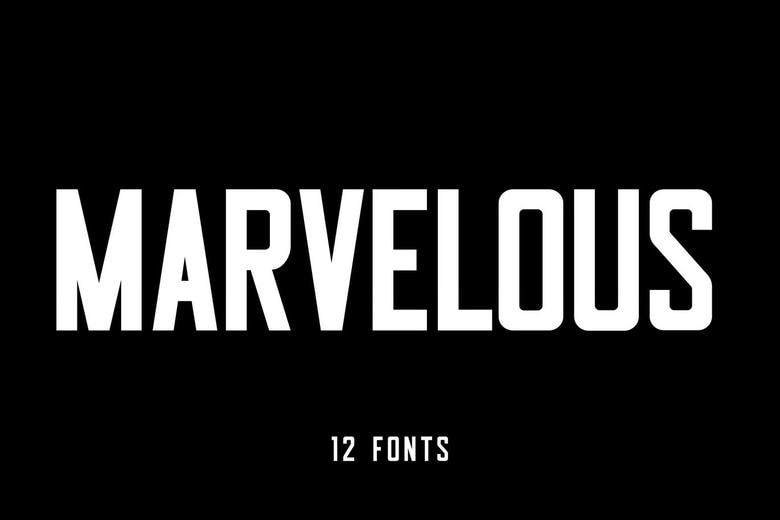
Marvelous Font Family
Marvelous is a high impact condensed typeface which will perfectly add distinctiveness and clarity to any design. Based on the clean lines and modest size of the Marvelous typeface, you will have all the options you require to select the most suitable mood for your work: 12 various styles at your service. This typeface is refined for improving your work if you want a sleeker, traditional, or daring upcoming typeface.
Marvelous is a great solution for those who want to underline the legibility of the text as well as the general perspective in the project. Due to this compact design, it fits well when space is limited yet does not lack legibility and is suitable for both online and offline use. Marvelous is capable of doing very small prints right up to very large ones; regardless of where it is to be used, it stands out.
Marvelous Sans Serif Font Family